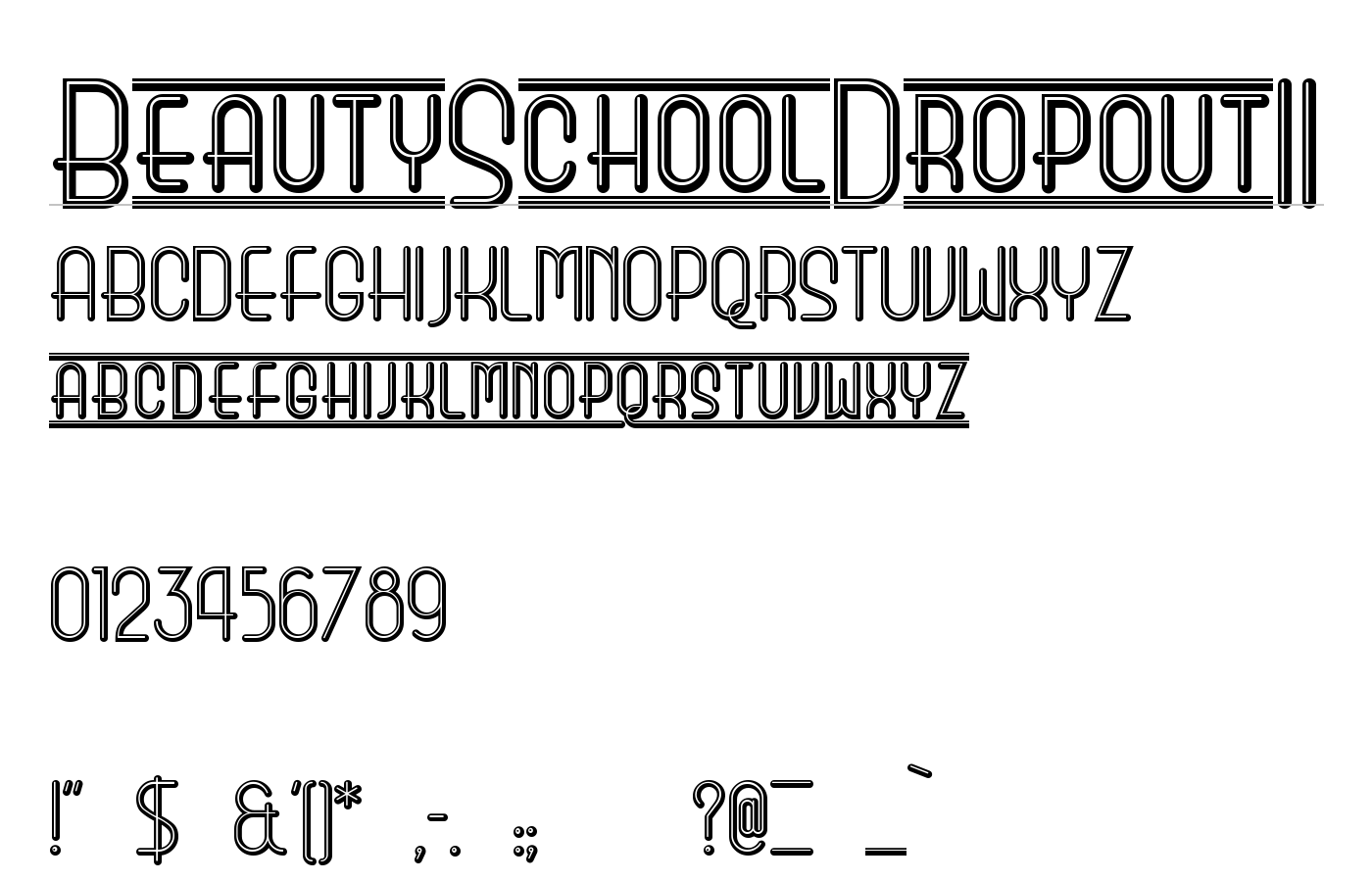
BeautySchoolDropoutII is a modern, condensed sans serif font with a unique double-line stroke that gives it a sleek, geometric appearance. Its narrow, tall letterforms combined with high contrast between the dual lines create a stylish and slightly retro vibe, making it ideal for bold headlines, logos, and eye-catching designs. This font works well in creative branding and editorial projects where a distinctive, fashion-forward look is desired.
BeautySchoolDropoutII Font
About BeautySchoolDropoutII Font